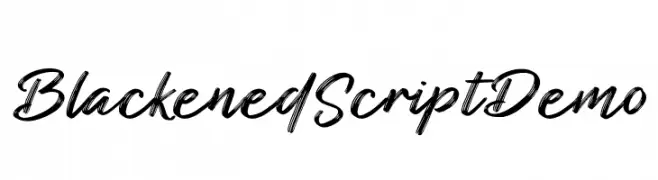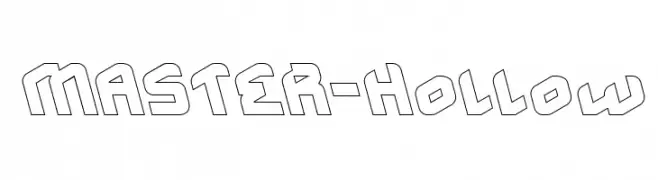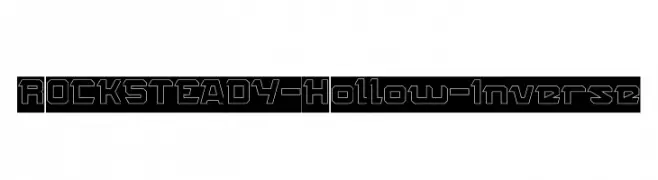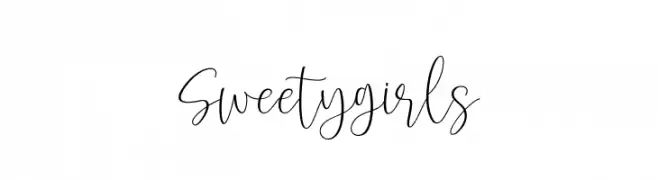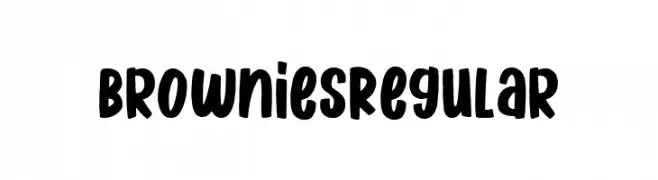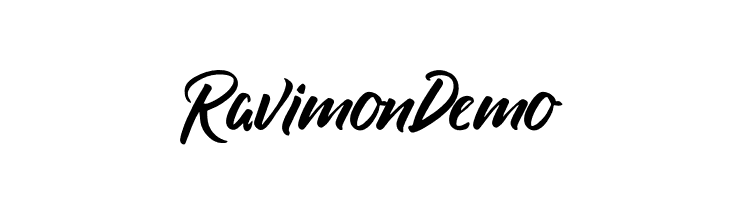
A segmented, digital-style font inspired by classic LED displays.
A bold, decorative font with an abstract, web-like pattern.
A bold, dynamic script font with flowing, interconnected strokes.
A lively and expressive script font with fluid, cursive strokes.
A bold, hollow, geometric font with a futuristic and angular design.
A bold, geometric hollow font with a modern, striking appearance.
A playful, elegant handwritten script with flowing, cursive strokes.
A playful, bold font with a hand-drawn, whimsical style.
A lively and dynamic script font with fluid, cursive strokes.
A bold, angular, and oblique font with a modern, edgy style.